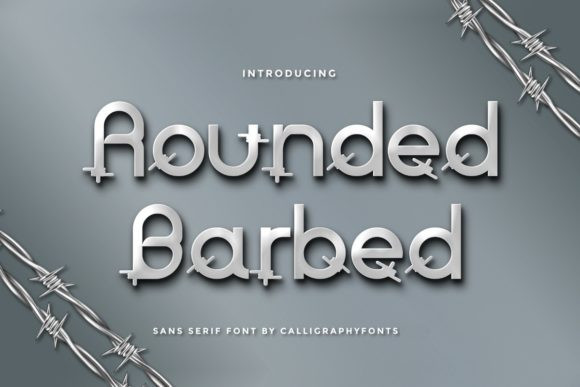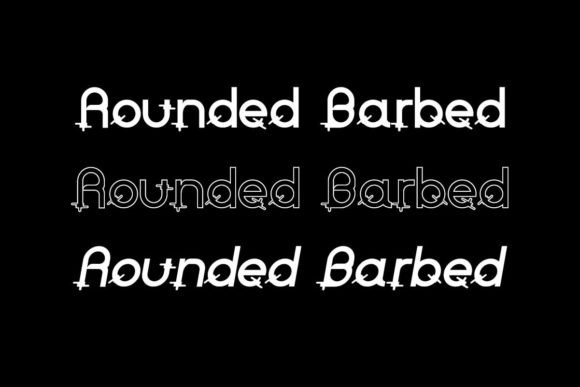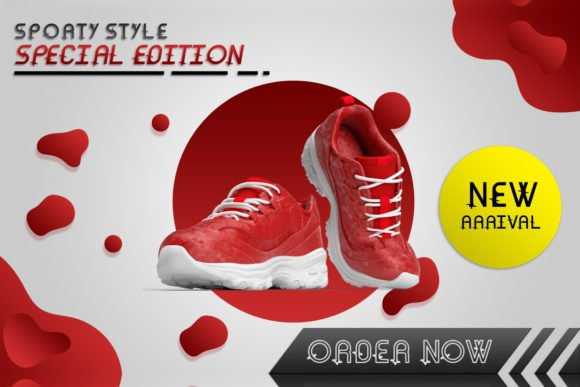
Rounded Barbed Font
Rounded Barbed is a cool and modern looking display font. Whether you’re using it for crafting, digital designing, presentations or greeting cards making, it’s perfect!